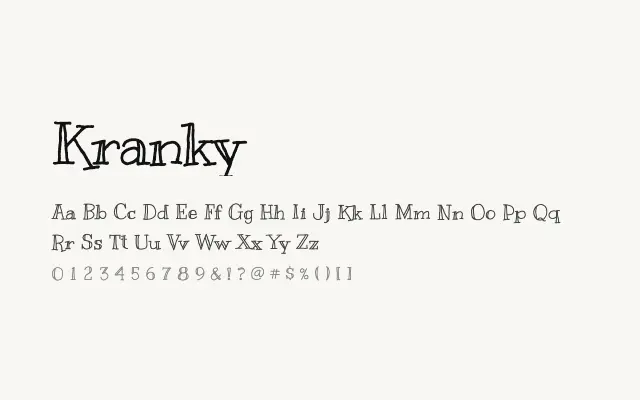
A deliberately rough, wobbly display typeface that embraces imperfection for a chaotic, hand-drawn effect.
Kranky leans fully into lo-fi irregularity, with letterforms that appear hand-drawn with gleeful inconsistency. It suits Halloween graphics, quirky branding, and informal posters where polish would undermine the point. The single weight and narrow stylistic range limit its usefulness, firmly placing it in novelty territory.
An irregular, hand-drawn display typeface with deliberately wobbly, uneven letterforms suggesting a rough, informal energy. Each character has an organic inconsistency that reads as playfully chaotic.